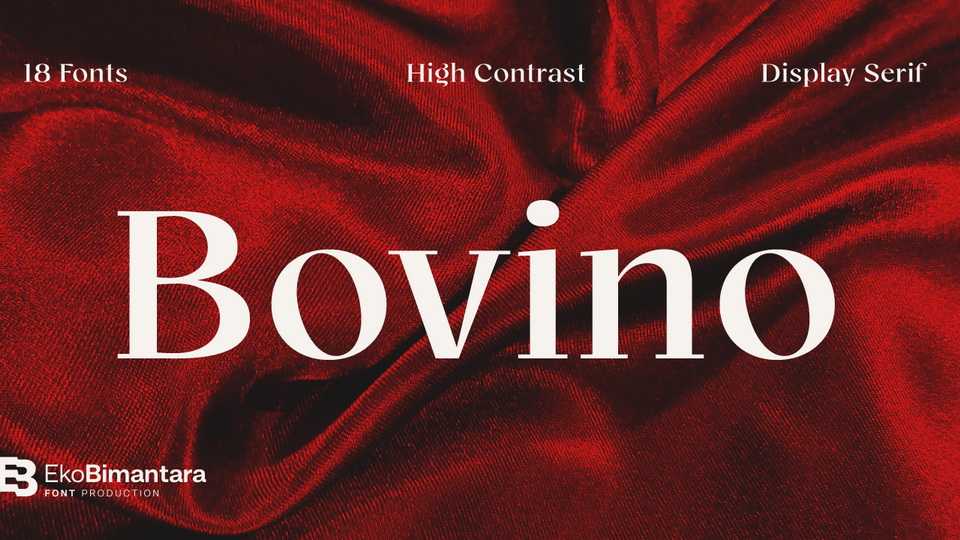
Download Bovino typeface, a display serif font family. Bovino was formed in a strong and sharp characters. The moderate x height and high contrast strokes make it attractive for titles and large size usage.